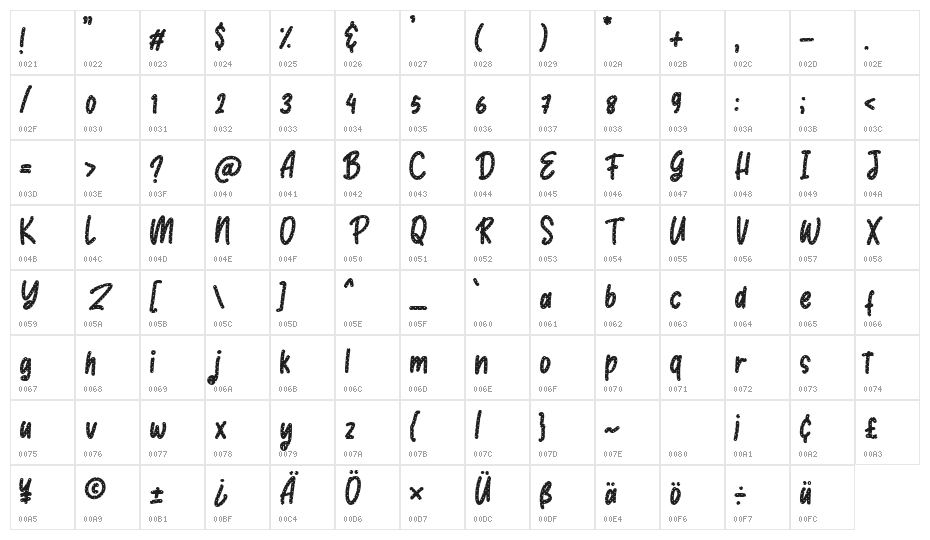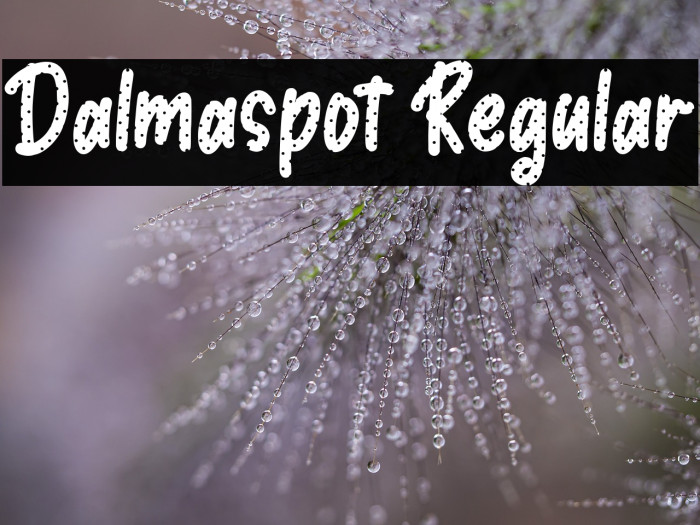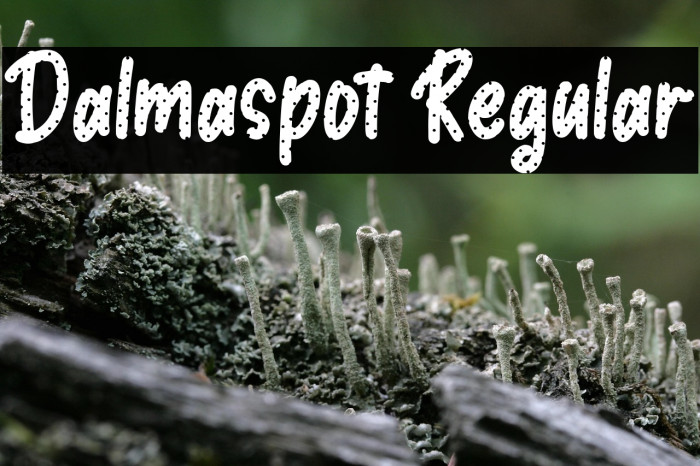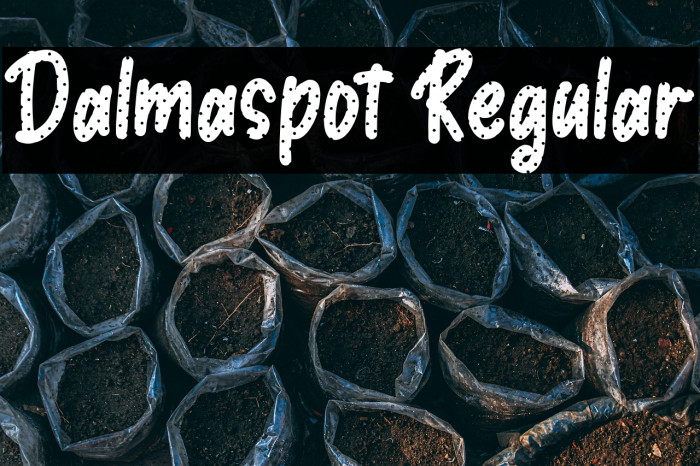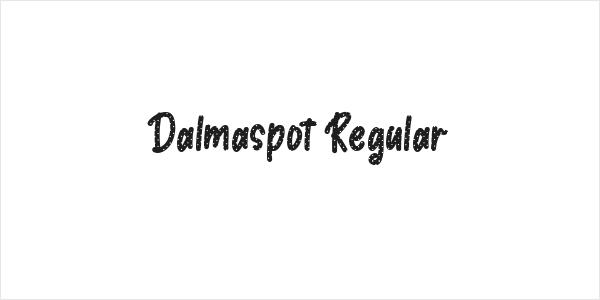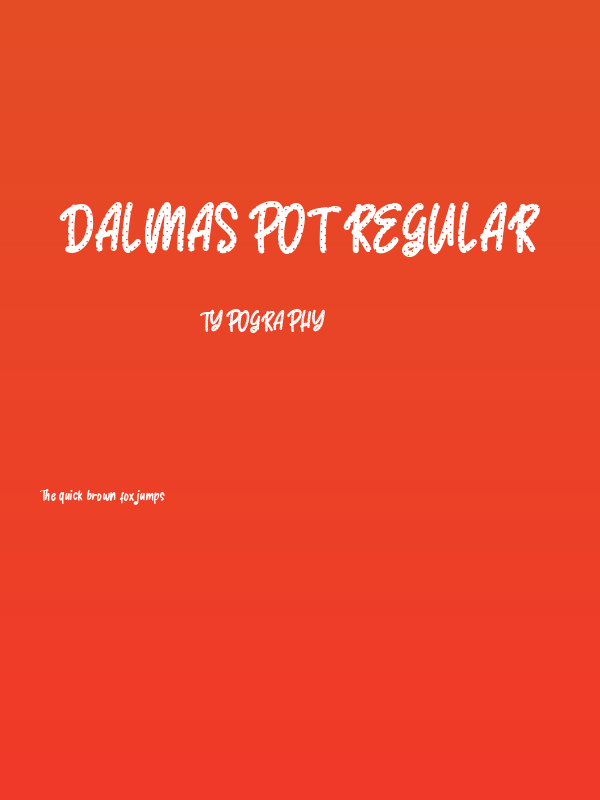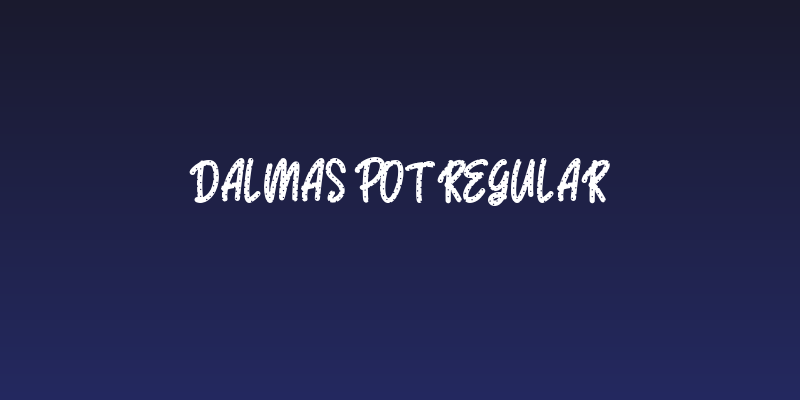
Dalmaspot Regular Font
Dalmaspot Regular Description
This playful and decorative font features a unique dotted pattern throughout each character, giving it a whimsical and lively appearance. The letters are bold and slightly condensed, with a hand-drawn aesthetic that adds a personal touch. The uppercase and lowercase letters maintain a consistent style, while the numbers and special characters are equally distinctive, making it versatile for various creative projects. The font's dotted texture adds visual interest and can be used to create eye-catching designs.
| Width | Condensed |
| Overall Style | Playful, Whimsical |
| Proposed Projects | Ideal for children's books, playful branding, party invitations, and creative posters. |